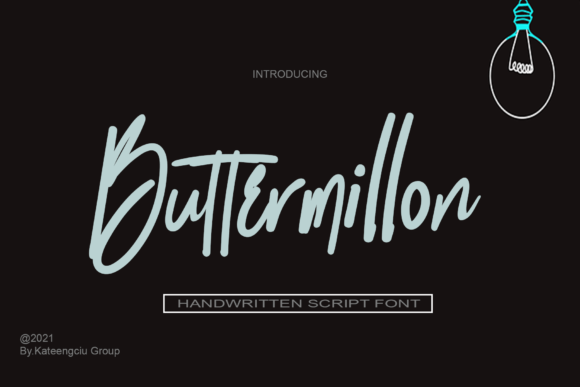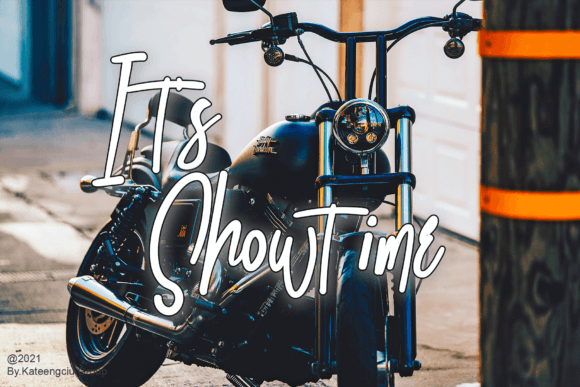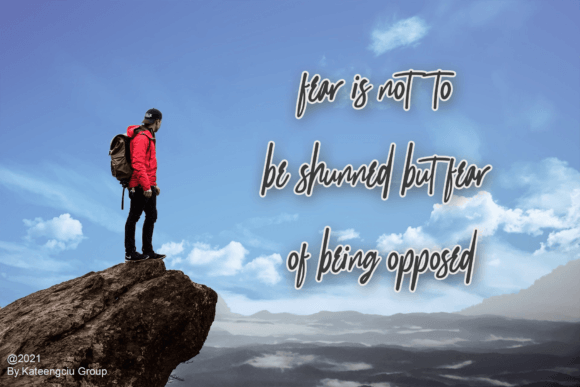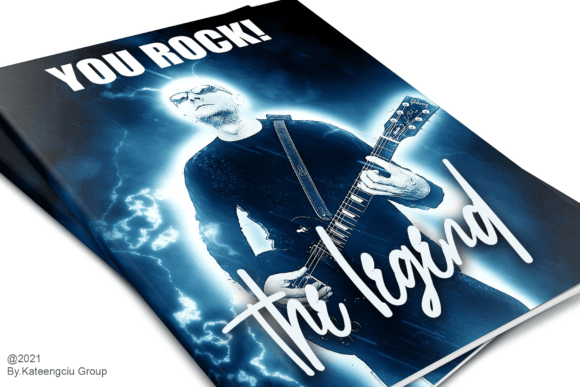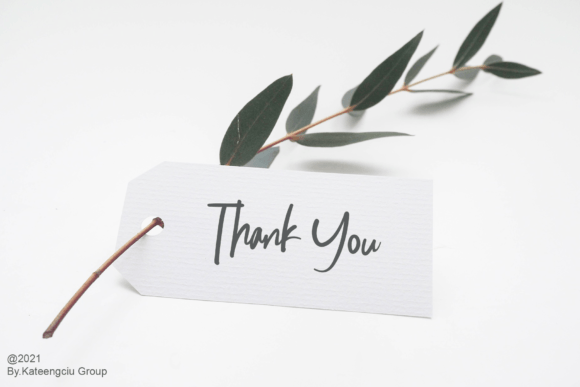
Buttermillon Font
About Buttermillon Font
“Buttermillon” is a delightful handwritten font that combines simplicity with a quirky charm, creating a unique and versatile typeface suitable for a wide range of design projects. Its classy, elegant, and modern look makes it a great choice for logos, branding, invitations, stationery, wedding designs, social media posts, and much more.
The font’s simplicity adds a touch of authenticity, while its quirky and playful elements give it a distinctive character. This blend of elegance and quirkiness allows “Buttermillon” to cater to various design styles and contexts. Whether you’re designing a sophisticated logo or crafting whimsical social media posts, this font adapts effortlessly to different creative purposes.
One of the standout features of “Buttermillon” is its ability to convey personality and creativity. Its handwritten appearance adds a human touch to your text, making it feel approachable and friendly. The font’s clean lines and subtle quirks create a harmonious visual experience, ensuring readability while infusing a sense of playfulness into your designs.
By incorporating “Buttermillon” into your projects, you’re infusing them with character and charm. Its simple yet quirky design captures attention and leaves a lasting impression on viewers. Whether you’re a graphic designer, a small business owner, or an individual creating personal projects, “Buttermillon” offers you a delightful handwritten font to enhance your designs and add a touch of creativity and warmth to your content.